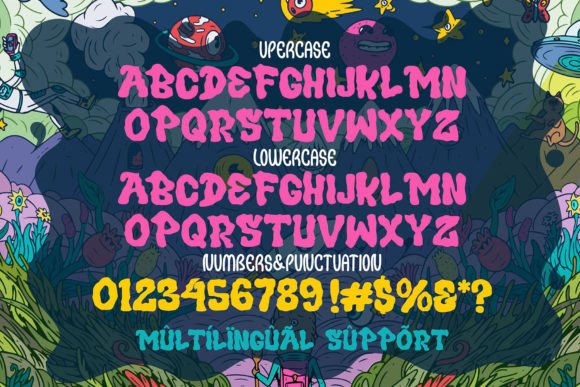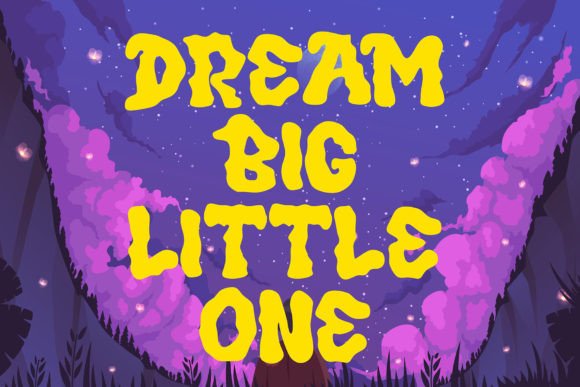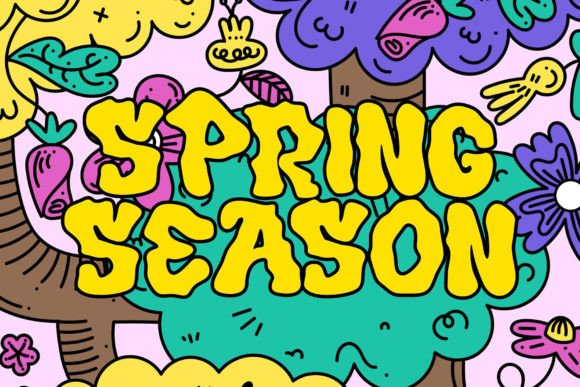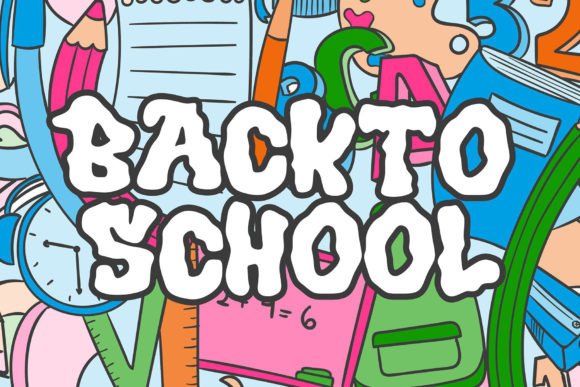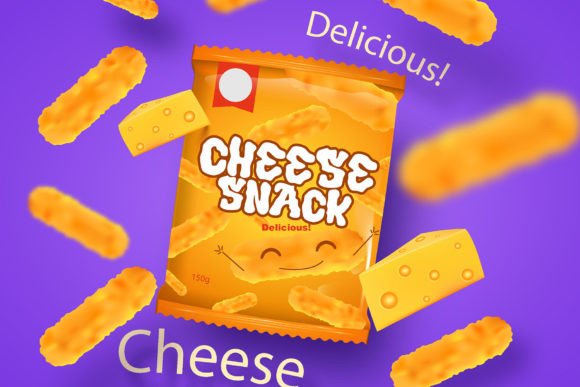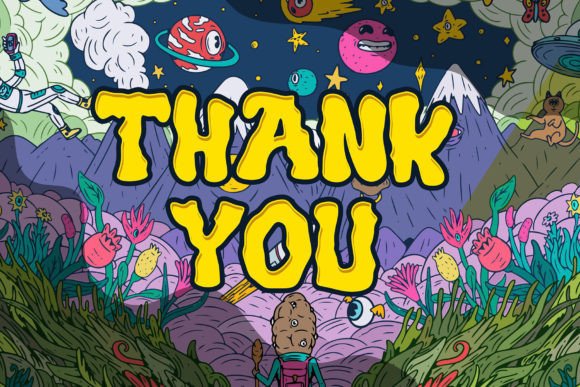
Introducing April Dream Font: Unleash Your Creativity with this Charming Display Font
Are you tired of using the same old fonts for your design projects? Look no further! We’re excited to introduce “April Dream”, a captivating display font that’s sure to add a touch of magic to your text. With its unique blend of eccentricity and sophistication, this font is perfect for designers and crafters looking to make a statement.
What Makes April Dream Font So Special?
April Dream is more than just a font – it’s an experience. Its alluring design and charismatic personality are sure to captivate your audience and leave a lasting impression. Each letter has been carefully crafted and tweaked to perfection, ensuring that every word is a masterpiece of creativity and imagination.
One of the standout features of April Dream is its eclectic style, which effortlessly blends playfulness with sophistication. The font’s vivacious vibe is infectious, making it perfect for a wide range of projects, from eye-catching posters and unique invitations to dynamic branding and engaging social media graphics.
The Perfect Choice for Designers and Crafters
Whether you’re a seasoned designer or a crafty DIY enthusiast, April Dream is the perfect choice for anyone looking to add a touch of whimsy to their text. The font’s distinctive characters and eccentric flair make it ideal for:
- Eye-catching posters and flyers
- Unique invitations and event branding
- Dynamic branding and packaging design
- Engaging social media graphics and content
- Creative crafting and DIY projects
Unleash Your Imagination with April Dream
April Dream is more than just a font – it’s a journey through the playground of imagination. With its charming and energetic vibe, this font has the power to transform your text into a whimsical adventure that captivates and delights.
Whether you’re looking to create a bold statement or a subtle hint of personality, April Dream is the perfect tool for the job. Its versatility and flexibility make it easy to use in a wide range of contexts, from digital design to print and crafting.
Key Features of April Dream Font
- Unique and eccentric character design
- Eclectic style with a vivacious vibe
- Perfect for display text and headlines
- Suitable for a wide range of design projects
Get Ready to Fall in Love with April Dream
If you’re looking for a font that will add a touch of magic to your design projects, look no further than April Dream. With its captivating design and charming personality, this font is sure to steal your heart and become your new go-to choice for all your design needs.